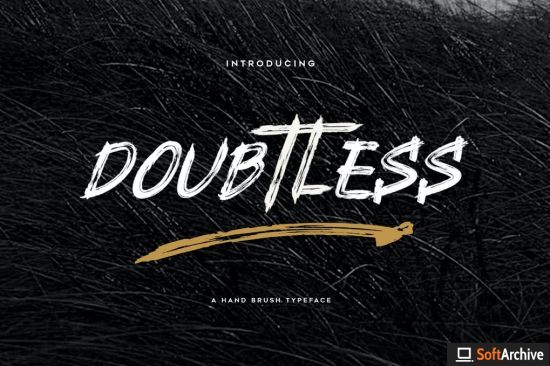
Introducing Doubtless Brush Typeface, with authentic hand brush imperfections and a very bouncy baseline It has a perfectly paired complimentary marker font, and a super handy set of bonus Swash. Ideal for logos, handwritten quotes, product packaging, header, poster, merchandise, social media & greeting cards.